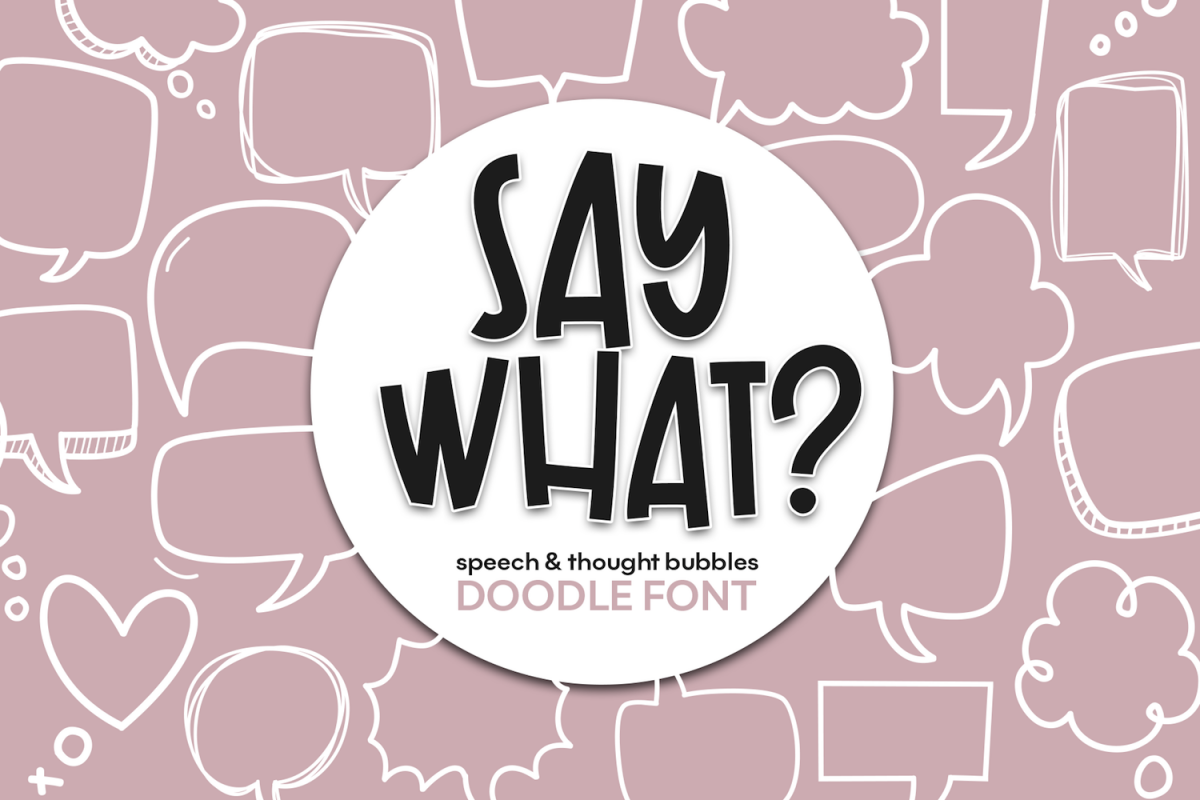
Say What - A Speech Bubble Doodle Font
Say What is a doodle (dingbat) font.
It includes 52 hand-drawn, speech & thought doodles.
Instead of separate image files, you have access to all 52 in the convenience of a font!
Instead of a letter showing up, a small doodle will!
You can resize the doodle, color the doodle and add text to the doodles!